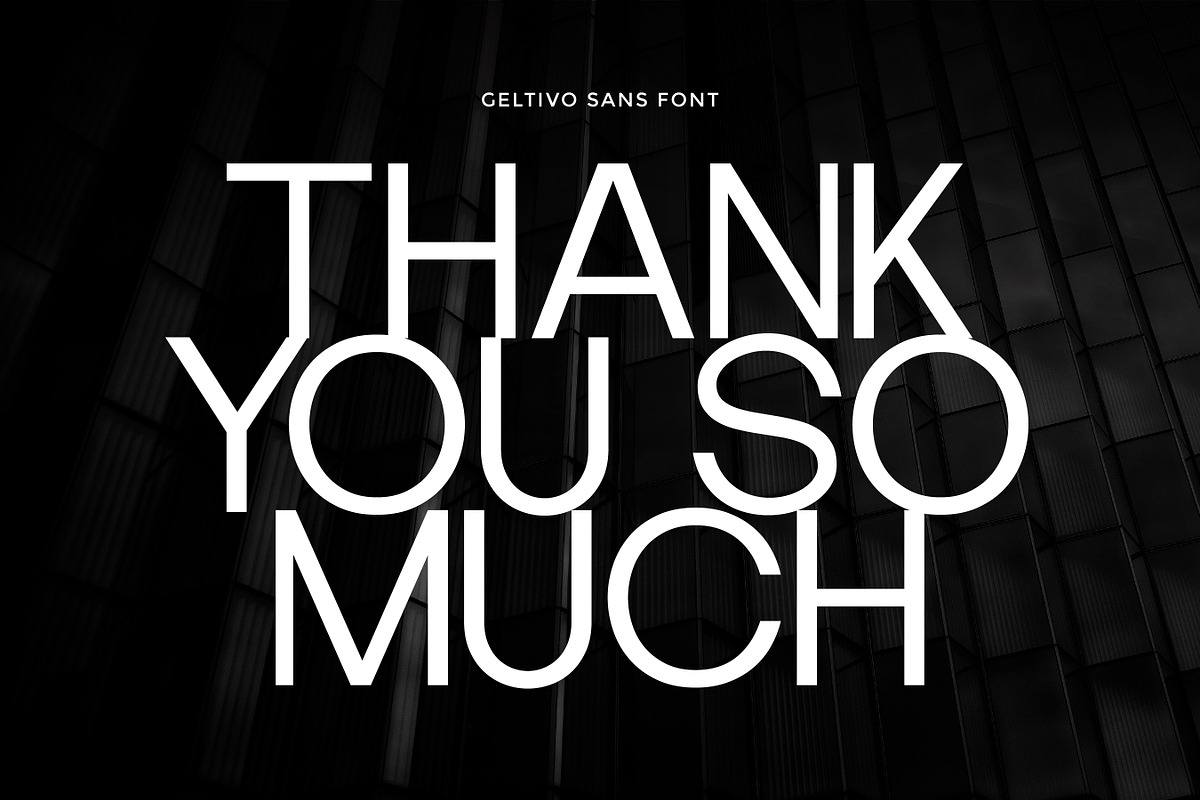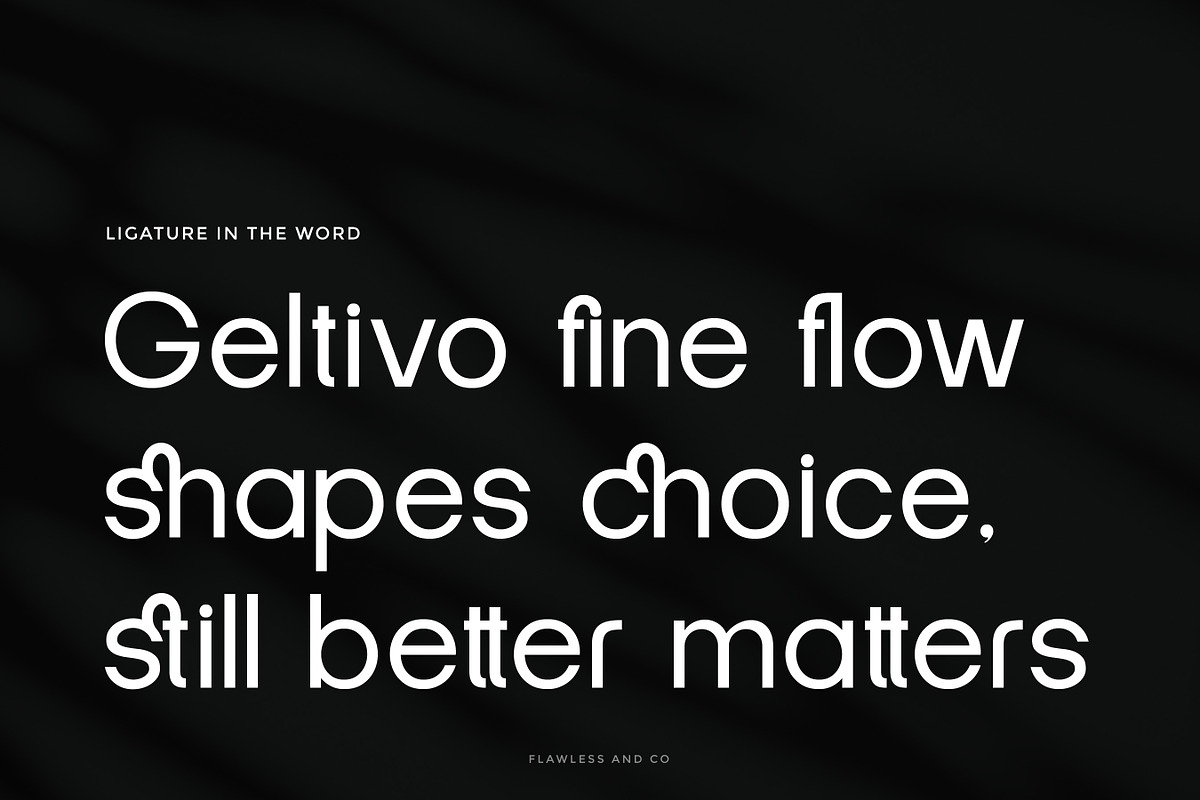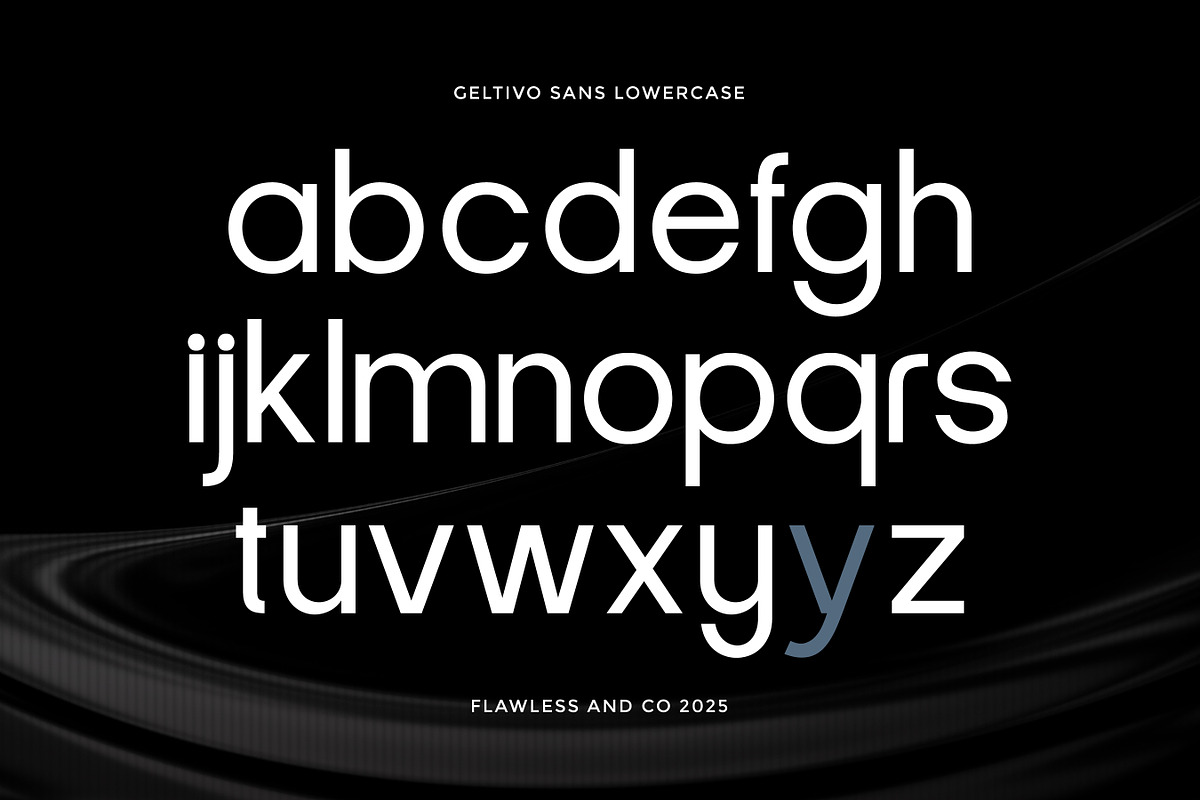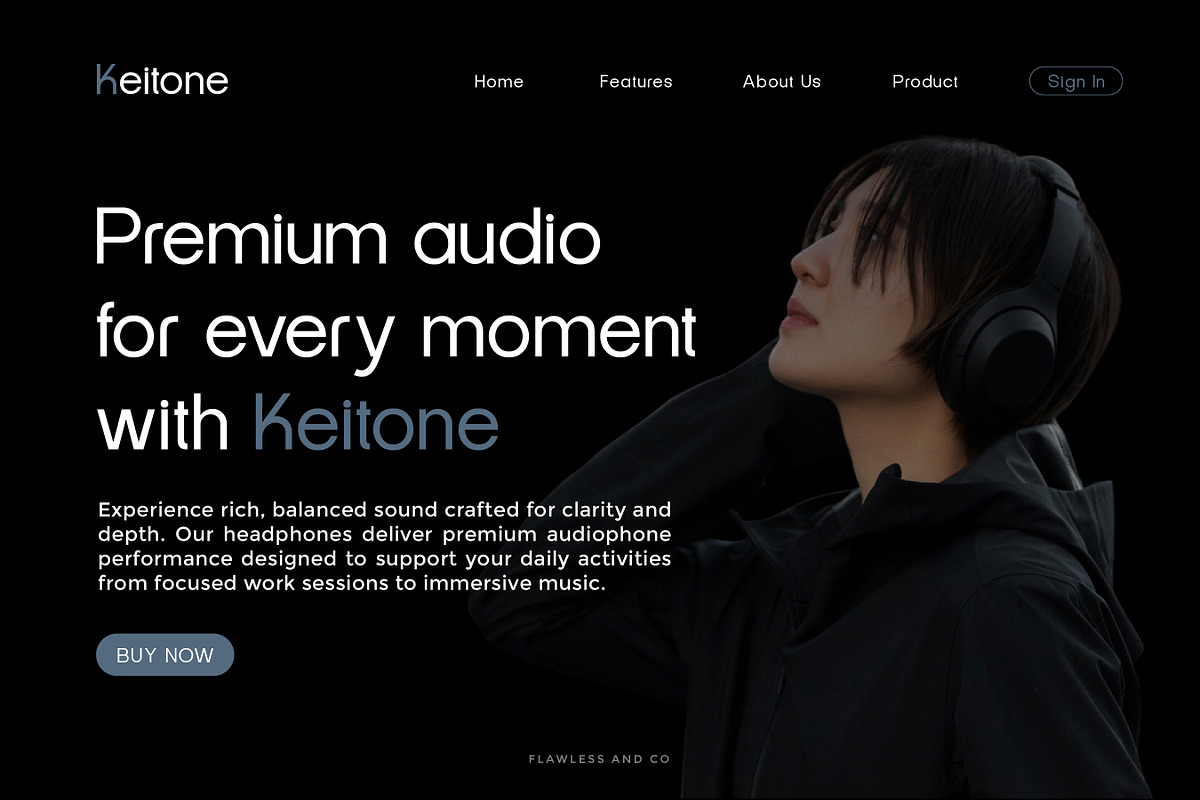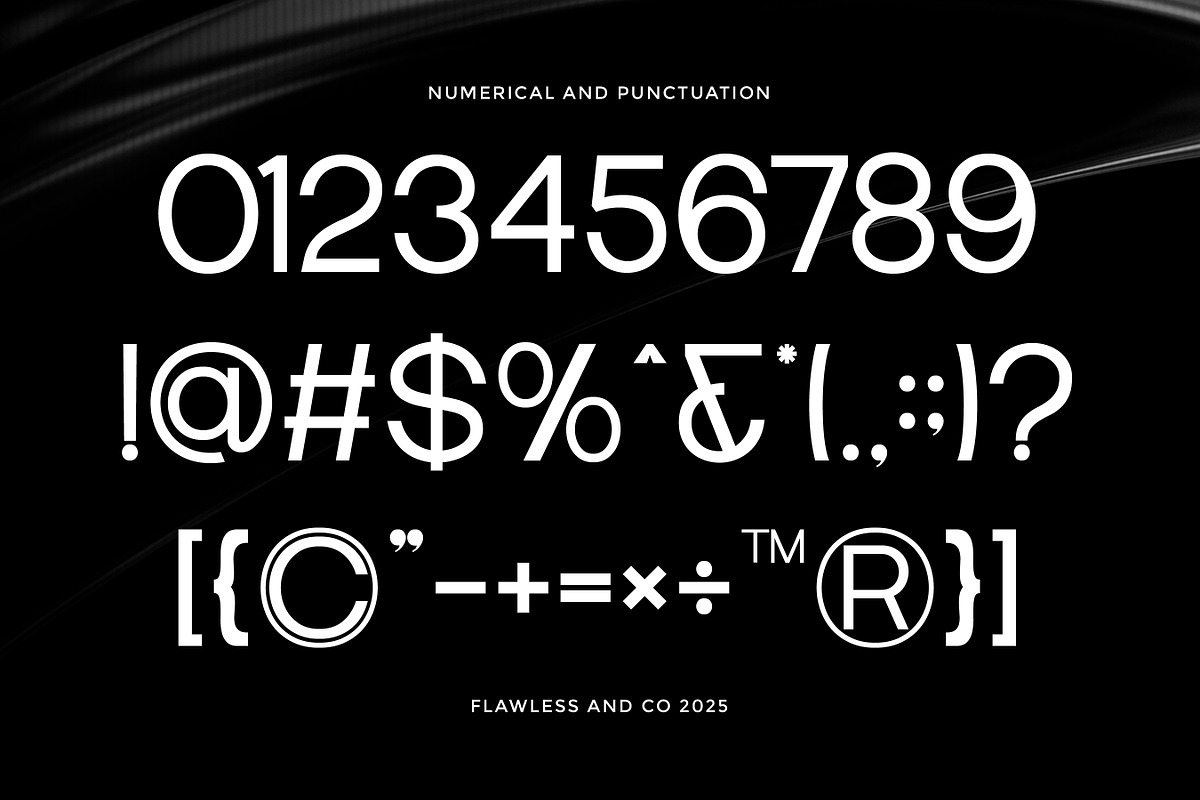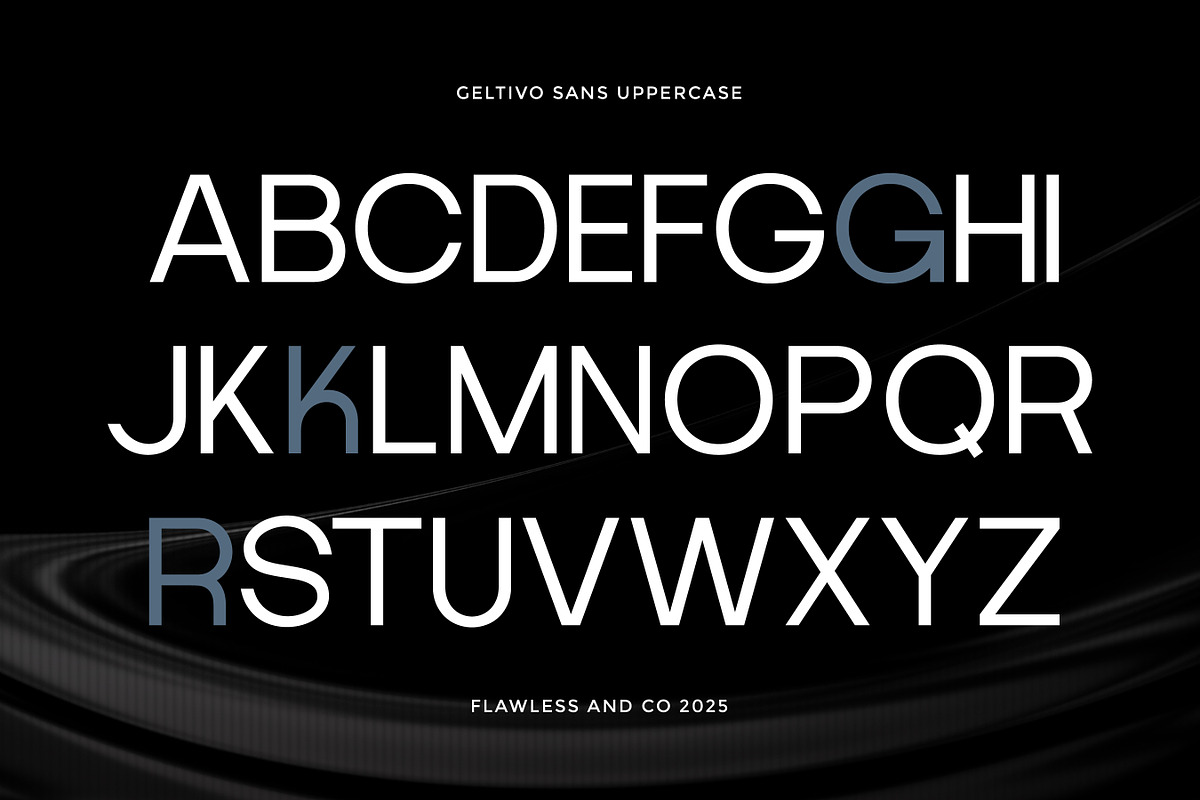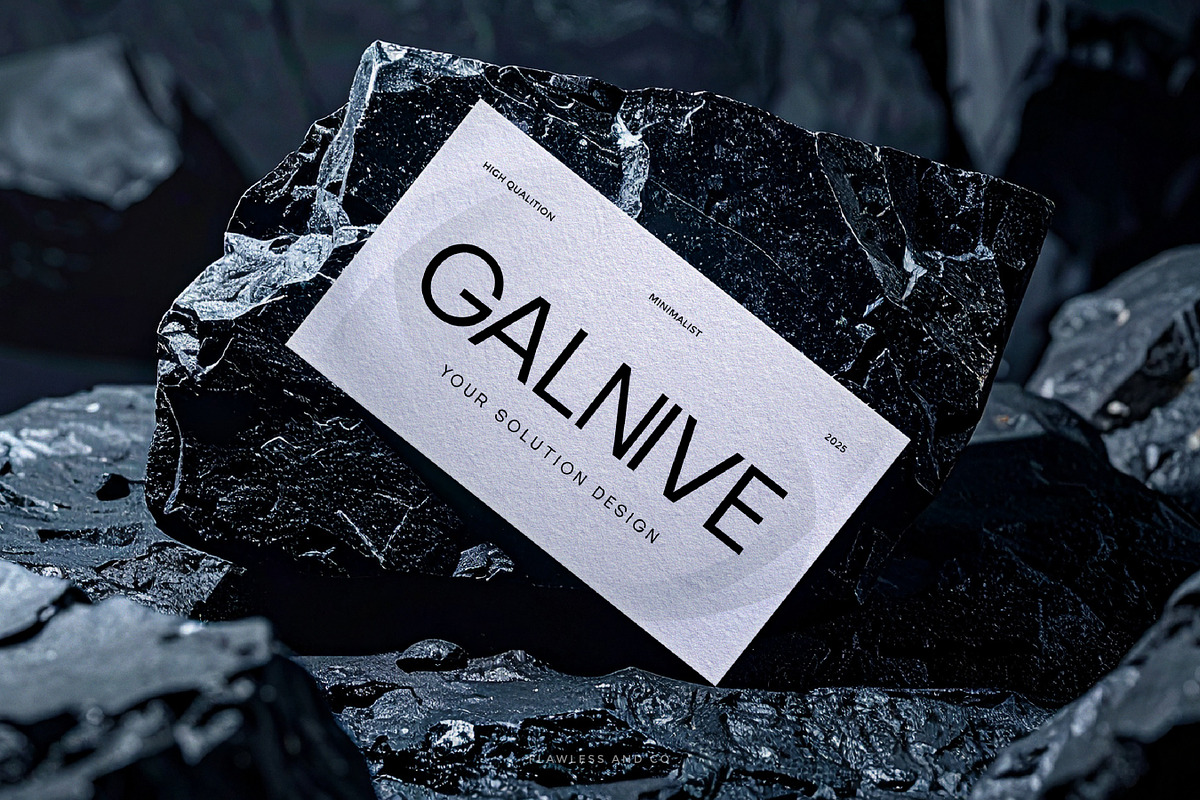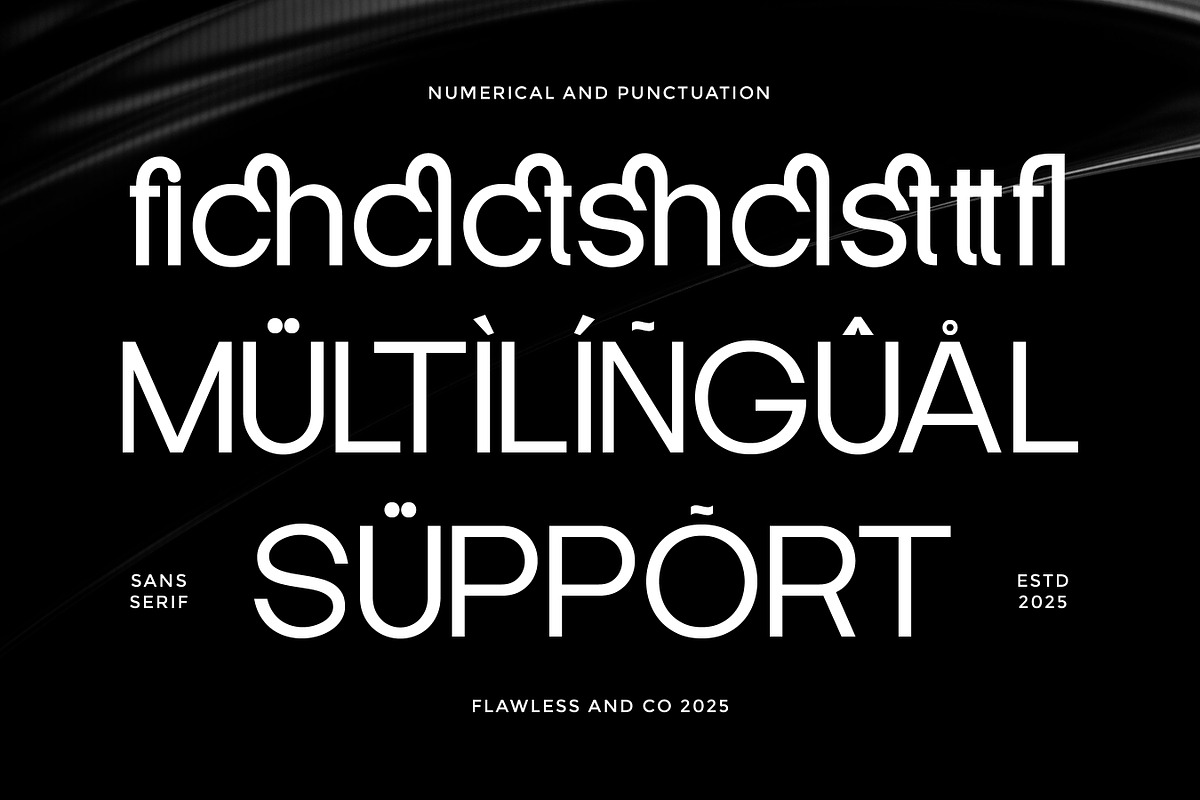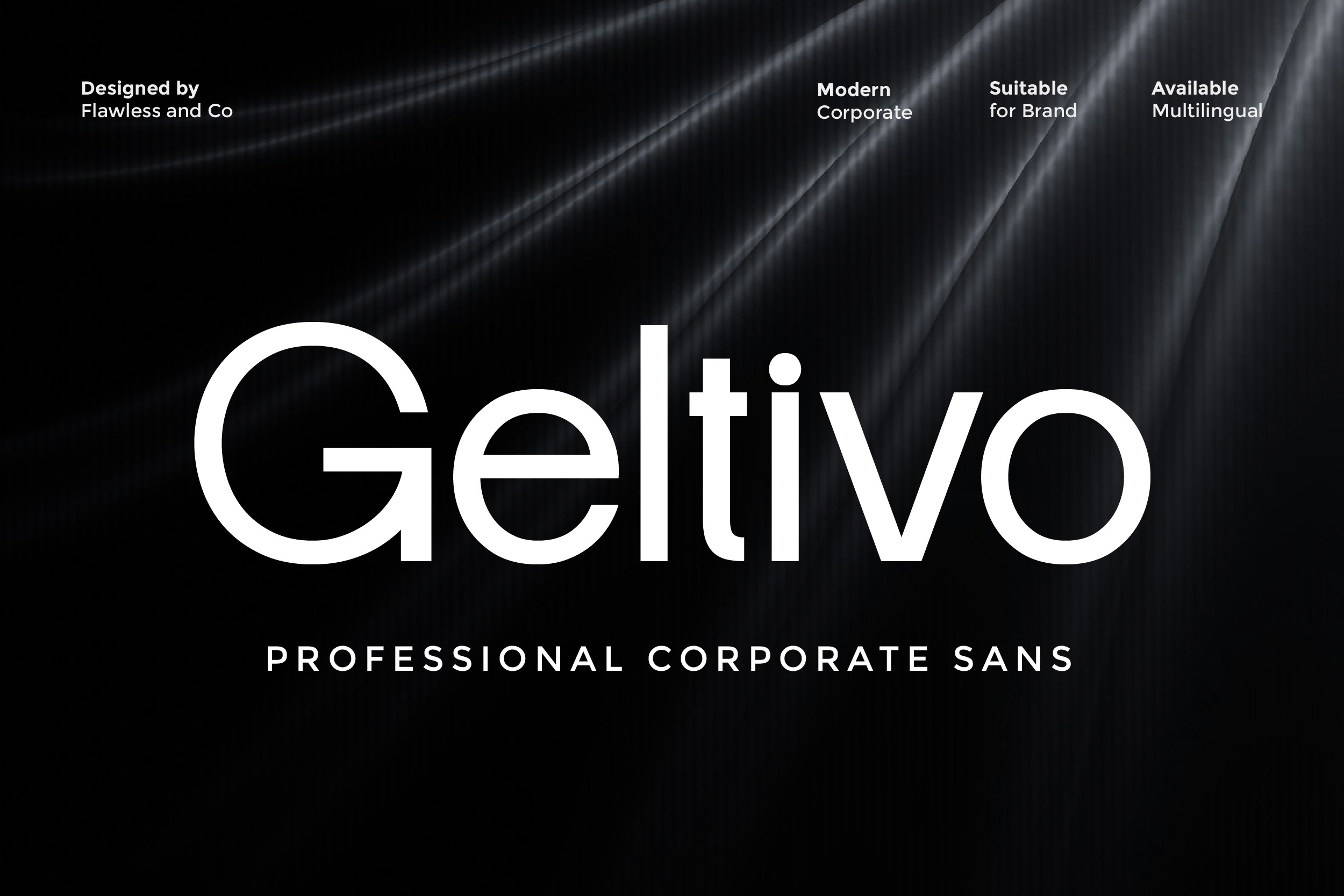
Geltivo - Corporate Sans Serif Font
Geltivo is a professional corporate sans serif font designed to deliver clarity, confidence, and a modern business aesthetic. With its clean structure, balanced proportions, and refined simplicity, Geltivo is perfect for projects that require a strong, trustworthy, and contemporary typographic presence.
This font is built to perform exceptionally well across both digital and print media. Its clear letterforms ensure excellent readability, while the modern corporate feel makes it suitable for branding that aims to look professional, reliable, and forward-thinking.
Suitable for:
- Corporate branding & identity
- Business logos & brand systems
- Company profiles & presentations
- Websites & digital platforms
- Marketing materials & advertisements
- Professional documents & reports
- Corporate social media content